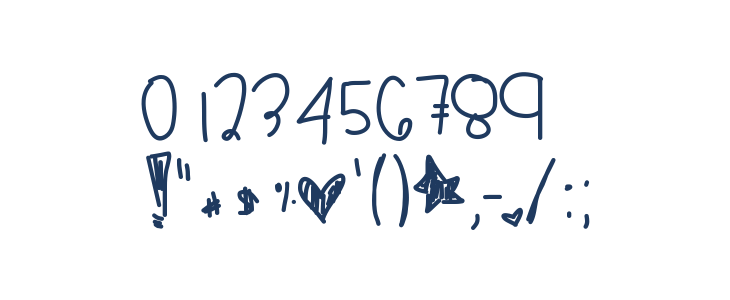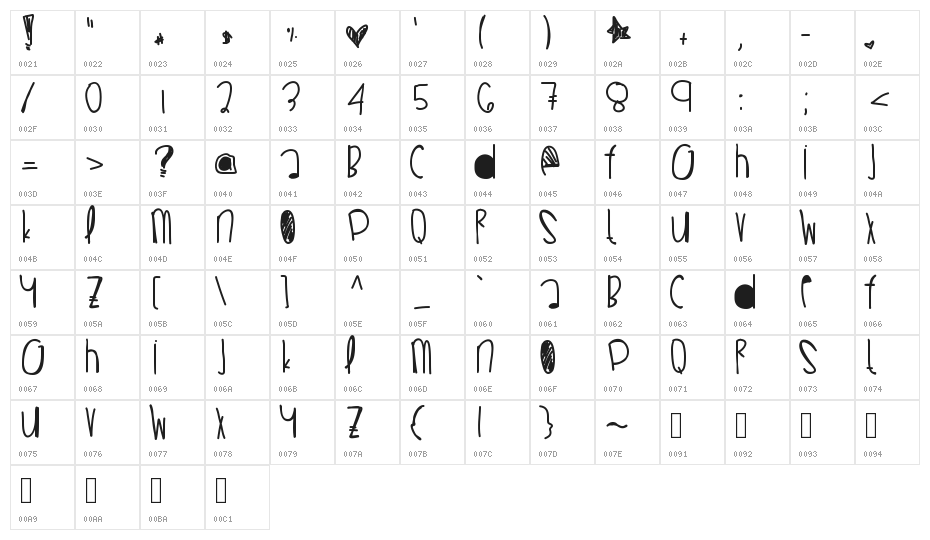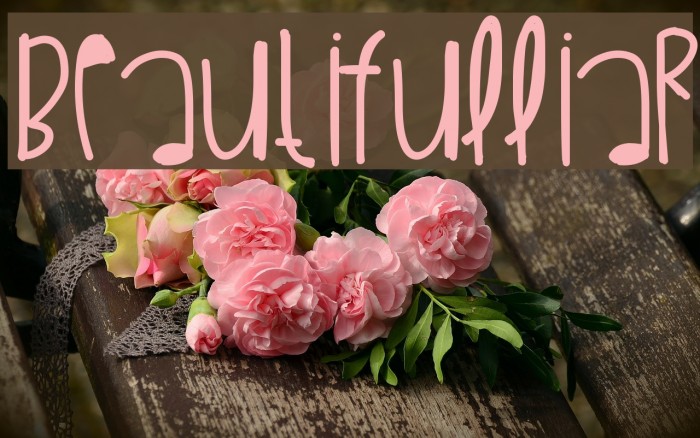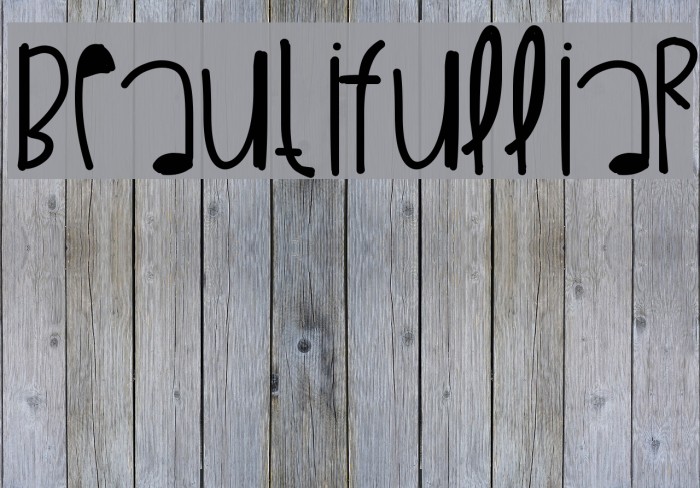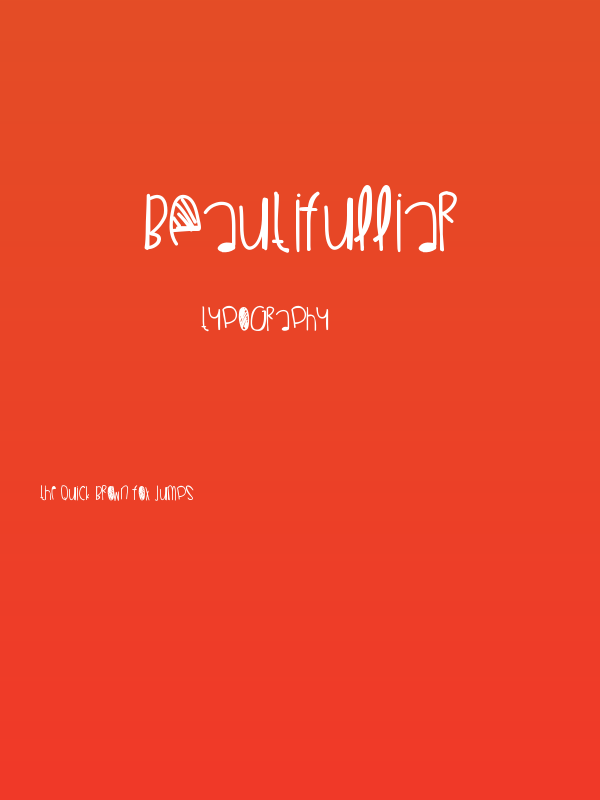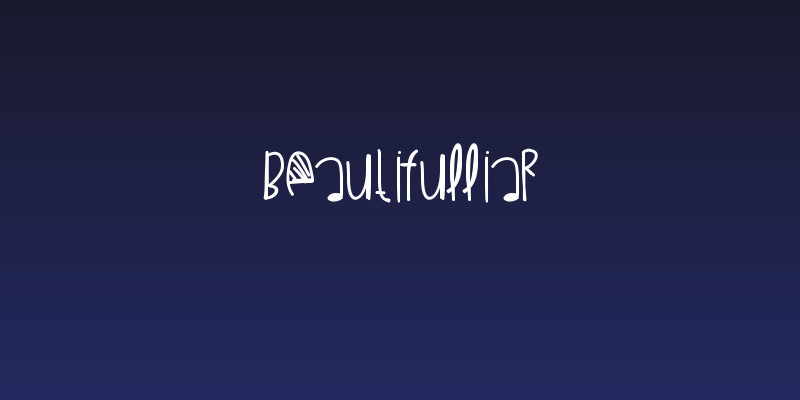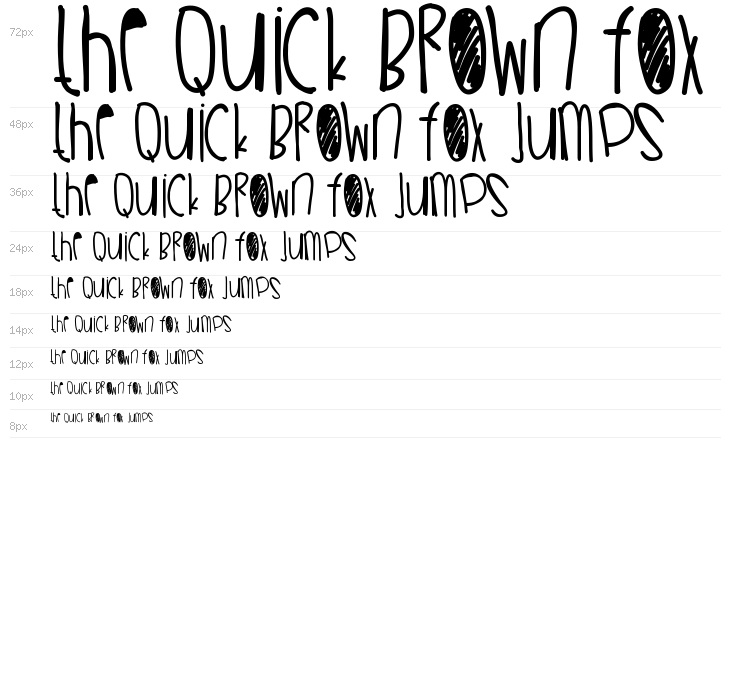
BeautifulLiar Font
BeautifulLiar Description
This playful and whimsical font features a handwritten style with a casual and artistic flair. The letters are tall and narrow, with a slightly uneven baseline that adds to its charm. The strokes are smooth and consistent, giving it a cohesive look despite its informal nature. The font includes both uppercase and lowercase letters, numbers, and a variety of special characters, making it versatile for different design needs. Its unique personality makes it stand out, perfect for projects that require a touch of creativity and individuality.
| Proposed Projects | Ideal for greeting cards, children's books, playful branding, and creative social media graphics. |